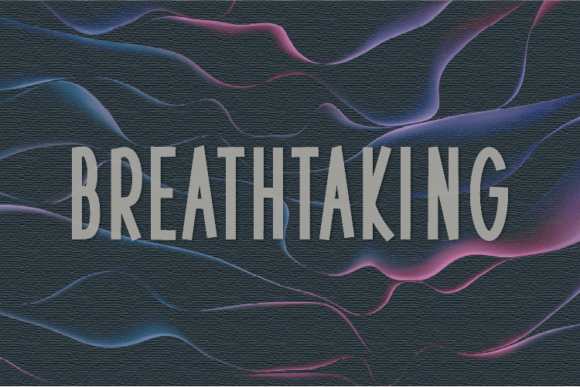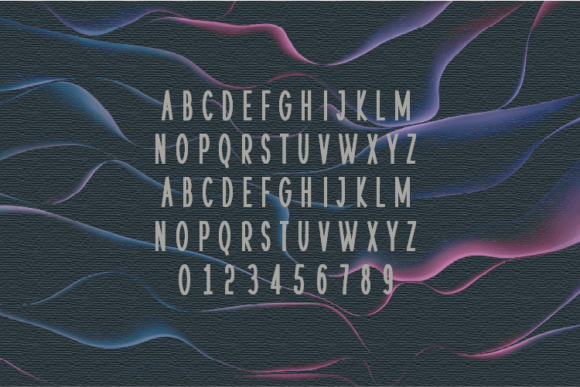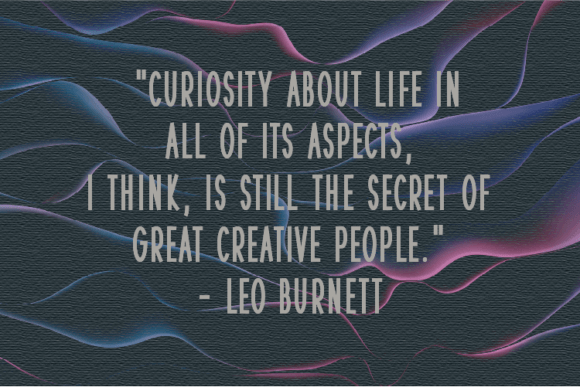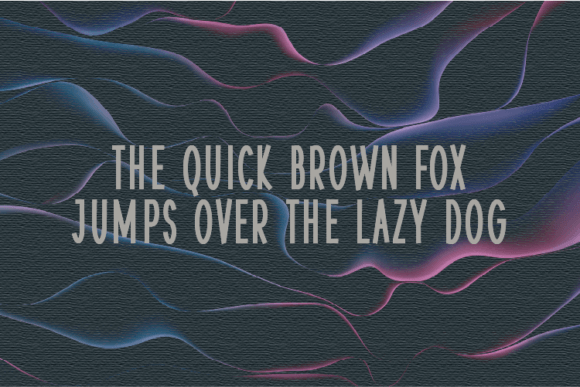
Breathtaking Font
About Breathtaking Font
“Breathtaking” is a refined and immaculate handwritten font that radiates a sense of sophistication and modernity. Its clean and elegant appearance makes it an exceptional choice for a wide range of design applications, from logos and branding to invitations, stationery, wedding designs, social media posts, and beyond.
The distinct charm of “Breathtaking” lies in its ability to convey a balance between a clean, minimalist aesthetic and a classy, elegant demeanor. This font effortlessly exudes a sense of professionalism and contemporary style.
For logos and branding, “Breathtaking” adds a touch of class and uniqueness. It helps establish a memorable and distinctive brand identity, leaving a lasting impression on your audience. The font’s clean handwritten style communicates a modern, upscale image while maintaining an air of elegance.
In invitations and wedding designs, “Breathtaking” elevates the overall aesthetics of your projects, creating an atmosphere of refinement and sophistication. Whether it’s for formal wedding invitations or elegant event stationery, this font enhances the visual appeal and sets the tone for a memorable occasion.
For stationery and social media posts, “Breathtaking” brings a sense of modern elegance to your designs. It makes your content more visually appealing and engaging, whether you’re crafting professional documents or curating a stylish online presence.
“Breathtaking” is a versatile font that adapts effortlessly to various design contexts, making it a valuable asset for designers and creatives.
In summary, “Breathtaking” is a neat and clean handwritten font that excels in a broad spectrum of design projects. Its versatility, classiness, and modern elegance make it an ideal choice for logos, branding, invitations, stationery, wedding designs, social media posts, and more. When you incorporate “Breathtaking” into your designs, you’ll experience how it effortlessly enhances their overall aesthetics, giving them a polished and stylish character that resonates with your audience. Make “Breathtaking” a part of your design arsenal and witness how it transforms your projects into refined and visually captivating creations.